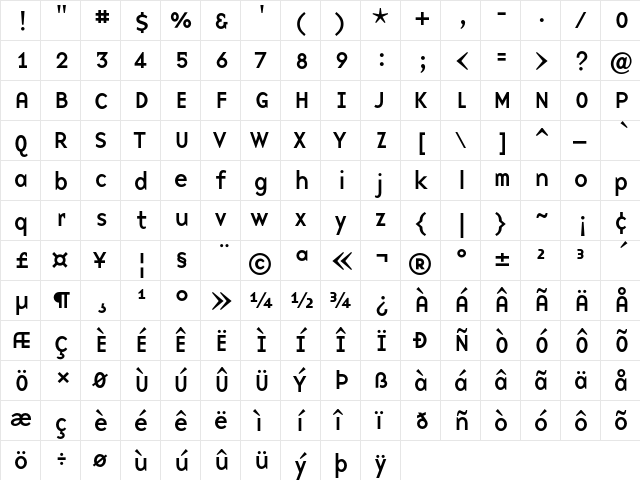
Base9 Medium
Design Context for Base9 Typeface
Base9 takes a measured approach to typography — its balanced proportions and neutral character make it a reliable workhorse for both digital and print work.